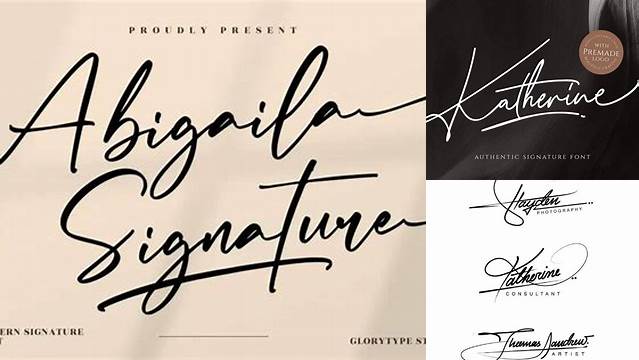
Free Signature Fonts
Are you looking to add a touch of elegance, personality, or authenticity to your designs? Well, look no further! In this article, we'll dive deep into the world of free signature fonts, exploring their versatility, how to find them, and how to use them effectively. Signature fonts, with their graceful lines and personal feel, can transform your projects, whether you're designing a logo, creating wedding invitations, or simply adding a unique flair to your social media posts. So, let's get started, and I'll show you all of the cool stuff!
What are Free Signature Fonts?
Alright, let's start with the basics. What exactly are signature fonts? Simply put, they're fonts designed to mimic the look of a handwritten signature. They often feature flowing strokes, varying line thicknesses, and a generally informal aesthetic, capturing the essence of a personal touch. These fonts are designed to look like real signatures, giving a sense of authenticity and individuality. They're perfect for projects where you want to convey a sense of intimacy, personalization, or a high-end feel. Think about branding materials, where a signature font can instantly make a business feel more approachable and trustworthy. In the world of graphic design, signature fonts are an extremely valuable asset. They can make any project feel more real and personal, setting your design apart from the crowd.
Here's a breakdown of what makes a signature font stand out:
- Flowing Design: Signature fonts are characterized by their fluid, interconnected letterforms, which give the impression of a continuous stroke, just like a real signature. The curves and lines blend seamlessly, creating a sense of motion and elegance. This characteristic is essential in imitating the natural flow of handwriting and contributes to the font's organic feel.
- Varied Line Weight: Unlike uniform fonts, signature fonts often have varying line thicknesses, which are created to mimic the pressure variations of a pen or brush. This variation in the thickness of the strokes adds depth and realism to the font, making it look like a genuine handwritten mark. The dynamic nature of the line weights enhances the font's visual interest and adds a sense of authenticity.
- Calligraphic Influence: Many signature fonts are inspired by calligraphy, borrowing elements like the slant of the letters and the graceful curves that are characteristic of calligraphic scripts. This influences helps to make them look elegant and artistic. The calligraphic look elevates the font, giving a sense of sophistication and artistry.
- Personalized Style: Signature fonts are inherently personal. Every font has its own unique characteristics and adds a distinctive flavor to the design. When you choose a font, you are also choosing a style that can communicate a certain message or feeling. This customization is part of the font's charm.
- Versatility: Signature fonts can be used in many different kinds of creative projects. They are very adaptable and can be used in a wide range of projects. From personal branding and stationery to invitations and social media posts, a signature font can bring a personal touch.
Where to Find Free Signature Fonts
- DaFont: DaFont is another popular website that has a vast collection of fonts, including a large selection of signature fonts. The site is well-organized, so it's easy to browse and find fonts that suit your style. Always review the license information, as some fonts on DaFont may require a donation or only be free for personal use.
- Font Squirrel: Font Squirrel offers a curated collection of free fonts that are licensed for commercial use. This is especially important if you are using the fonts for business projects. The website provides high-quality fonts, and the licensing information is clear. This makes it a trustworthy site for designers. They verify the licenses, so you can use these fonts with confidence.
- BeFonts: BeFonts is another excellent resource for finding free fonts. It provides a user-friendly interface to browse and download fonts, including a nice selection of signature fonts. Before using, ensure that the license is suitable for your intended use, especially for commercial projects.
- Creative Market (Free Goods): Creative Market is a marketplace for design resources, but they offer free goods every week. You can often find signature fonts in the free section. You might need to create an account to download them, but it's worth it to get access to high-quality design assets.
Free signature fonts are great for giving your designs a personal touch. They add elegance and uniqueness to your projects. Whether you are creating a logo, making invitations, or enhancing social media content, signature fonts offer many possibilities to boost your designs. By understanding where to find these fonts, how to use them effectively, and how to troubleshoot any issues that arise, you can unlock the full potential of signature fonts and create visually appealing designs that resonate with your audience. Start exploring, experimenting, and incorporating signature fonts into your designs today to make your work stand out! Happy designing, guys!